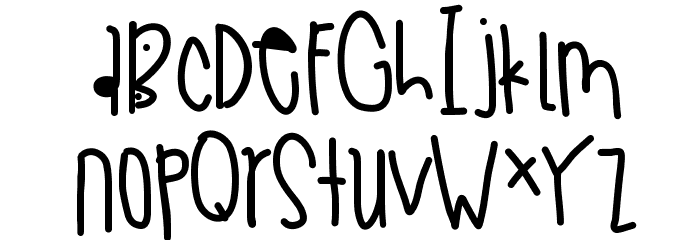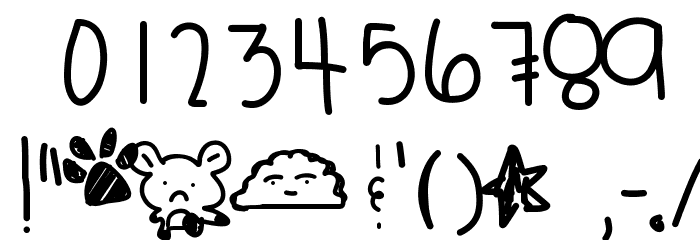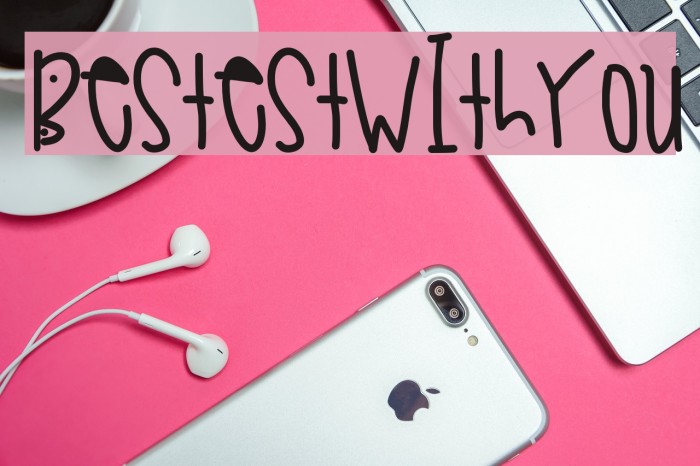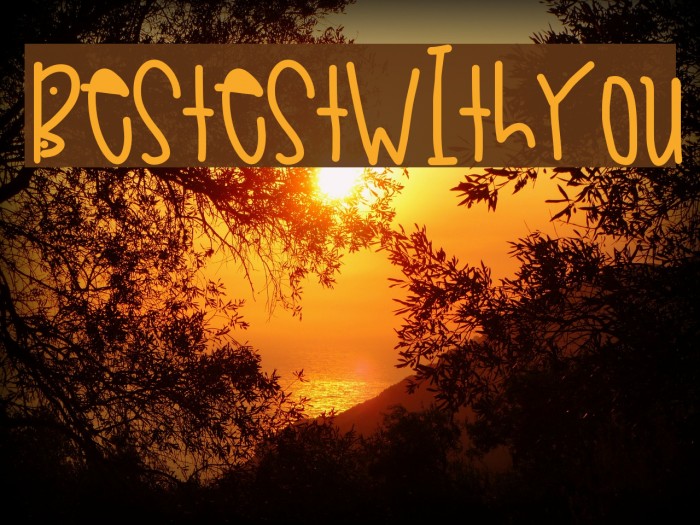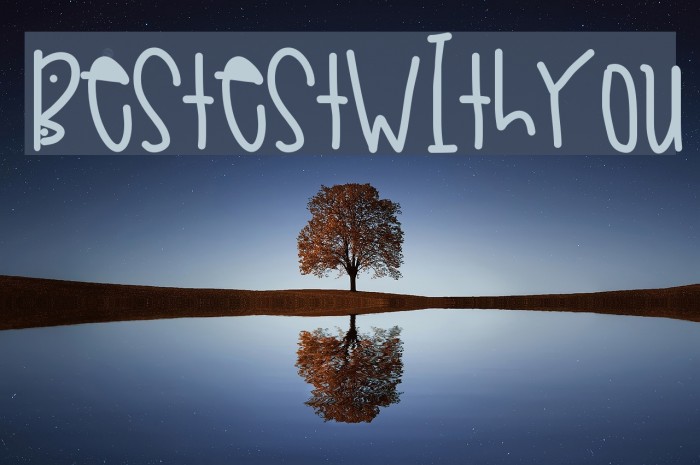
BestestWithYou Font
This playful and whimsical font features a handwritten style with a casual and friendly appearance. The letters are slightly irregular, adding a touch of charm and personality. The uppercase and lowercase characters maintain a consistent flow, while the numbers and special characters complement the overall design. The strokes are smooth and rounded, giving the font a soft and approachable feel. This font is perfect for projects that require a fun and informal touch, such as children's books, greeting cards, or playful branding.
- Proposed Projects: Ideal for children's books, greeting cards, playful branding, and informal invitations.
- Category: Handwritten
- Overall Style: Playful
- Use Case: Headlines, Logos, Informal text